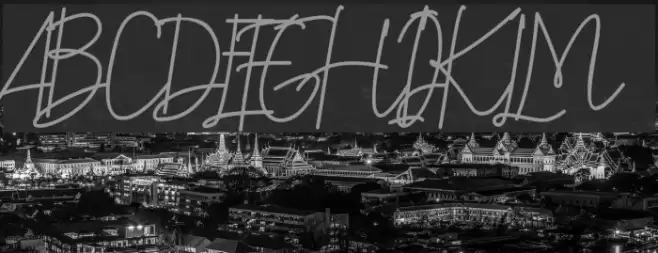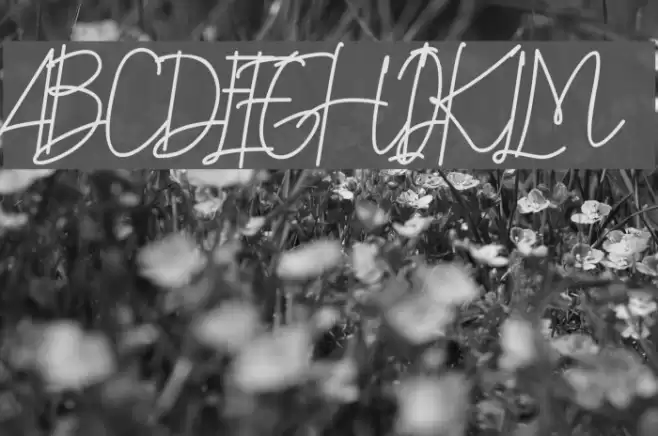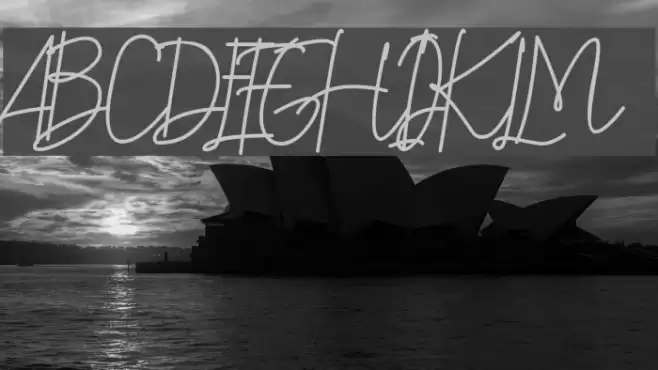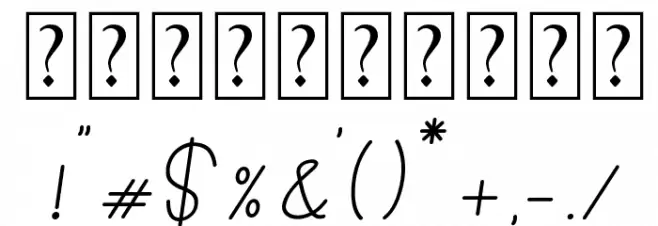
Katty Pretty 1 Font
Katty Pretty 1 Description
This font features a flowing, cursive style with a handwritten appearance. The uppercase letters are bold and expressive, with exaggerated loops and curves that give them a dynamic and artistic flair. The lowercase letters maintain a consistent fluidity, with elegant strokes that connect seamlessly. The numerals are similarly styled, maintaining the overall aesthetic of the font. Special characters are included, matching the playful and creative nature of the script. This font is ideal for projects that require a personal touch, such as invitations, greeting cards, or branding materials that aim to convey elegance and creativity.
A cursive, handwritten font with bold, expressive uppercase letters and fluid lowercase characters from Uncategorized fonts.
- Proposed Projects: Ideal for invitations, greeting cards, personal branding, and creative projects requiring an elegant touch.
- Use Case: Logos, Headlines, Invitations